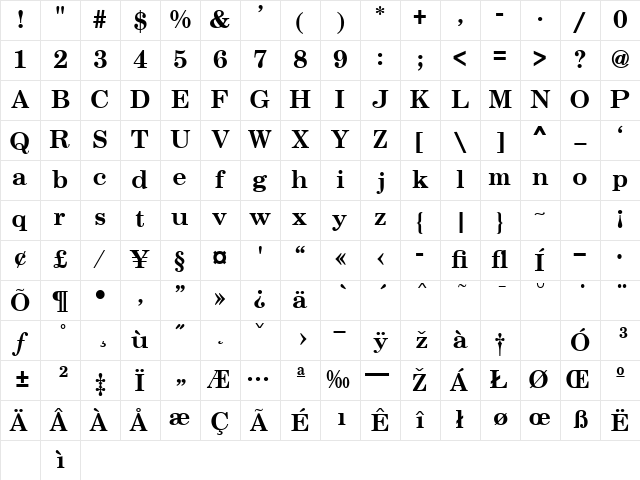
Complete CenturySchoolbookSSK Bold glyph index. Displaying only characters natively supported by CenturySchoolbookSSK Bold font.
CenturySchoolbookSSK is a composed and adaptable typeface that performs quietly and consistently across a wide range of design contexts. Its bold stroke weight gives it real presence on the page.